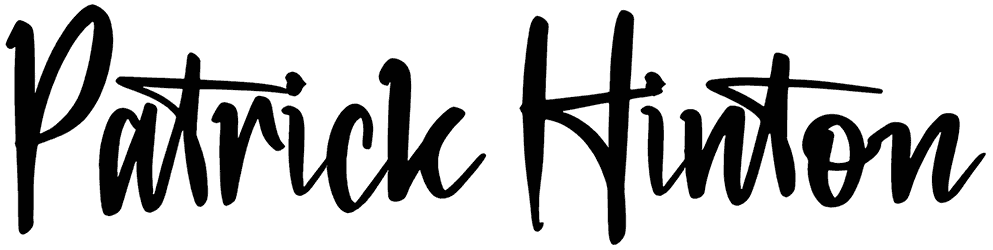
Patrick Hinton Font
Patrick Hinton is a script handwritten font that is modern and very classy! It provides you with ink pen characters that you can utilize for cursive style typography. Its creativity gives friendly vibes, it also has a unique artistic personality that is informal.
If you have been searching for an interesting font that looks cool, Patrick Hinton is the best one for you! You can include it in branding as well as invitations, wedding cards, tattoos, magazines, and fashions.